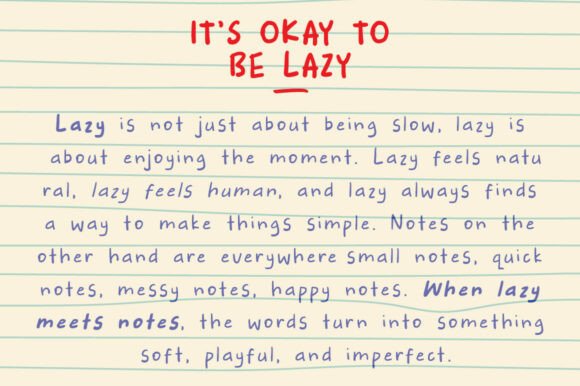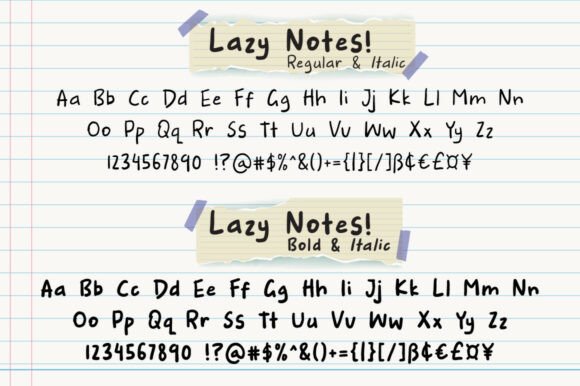
Introduction to Lazy Notes Font
Have you ever been working on a creative project and found yourself scribbling down ideas in a notebook, only to realize that the perfect font wasn’t available? You settle for something close, but it just doesn’t feel right. That’s where the Lazy Notes Font comes in – a handwriting-inspired font designed for effortless note-taking, and now, for your creative projects.
Imagine having a font that captures the natural, imperfect strokes of handwriting, with a relaxed and authentic touch. That’s exactly what you get with Lazy Notes Font, available in four styles: Regular, Regular Italic, Bold, and Bold Italic. With its high-quality design, it’s the perfect addition to any creative project, and the best part? It’s a free download, so you can get started right away.
Lazy Notes Font
- High-quality, professional font designed for creative projects and documents.
- Comes with a transparent background, making it ideal for use on images, videos, and other design elements.
- Includes a range of font styles, from casual to formal, to suit various design needs.
- Perfect for use in brochures, flyers, posters, and other marketing materials, as well as in digital projects like websites and social media graphics.
Honest Review: Lazy Notes Font
I recently stumbled upon the Lazy Notes Font, and I must say it’s been a game-changer for my creative projects. This font is a high-quality design resource that offers a unique and stylish look that can elevate any design.
What works well is the font’s ability to blend seamlessly with various design elements, making it perfect for creating visually appealing and cohesive designs. The Lazy Notes Font is available for free download, which is a huge bonus for designers on a budget.
Here are some of the font’s notable features:
- ✨ Unique and stylish design
- ✨ High-quality typography
However, I did encounter some limitations. The Lazy Notes Font may not be suitable for all design projects, particularly those that require a more formal or traditional look. Additionally, the font may not be as versatile as some other design resources, limiting its use in certain creative contexts.
Overall, I’m impressed with the Lazy Notes Font, and I’d highly recommend it to designers looking for a unique and high-quality design resource. Its free download option makes it an excellent choice for designers on a budget, and its transparent background option provides added flexibility for creative projects.
For optimal results, use the Lazy Notes Font in conjunction with a high-contrast background to make the text stand out. Experiment with different font sizes and styles to achieve the desired effect.
The Lazy Notes Font is suitable for a variety of creative projects, including digital art, graphic design, and web design. Its transparent background and high quality make it an ideal choice for designs that require a clean and modern look.